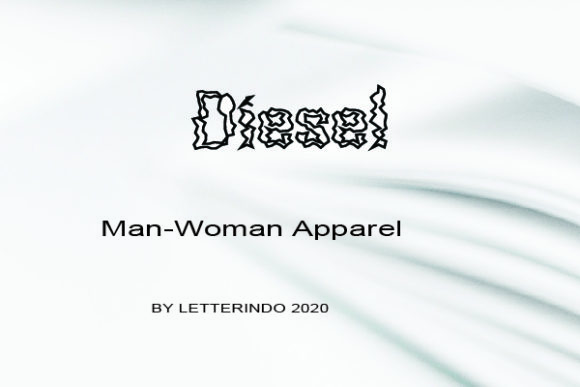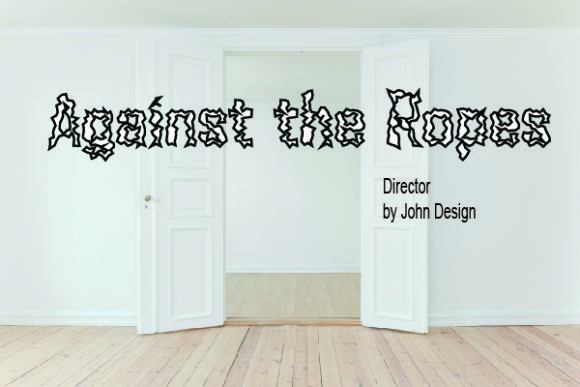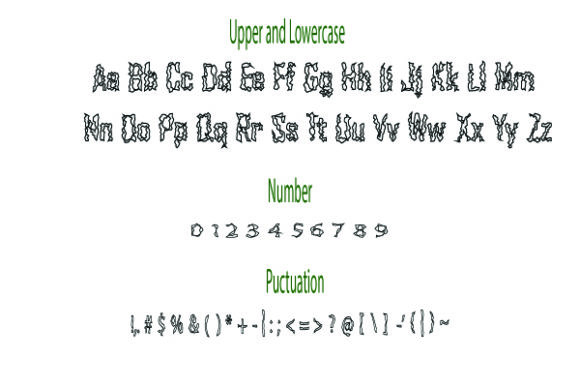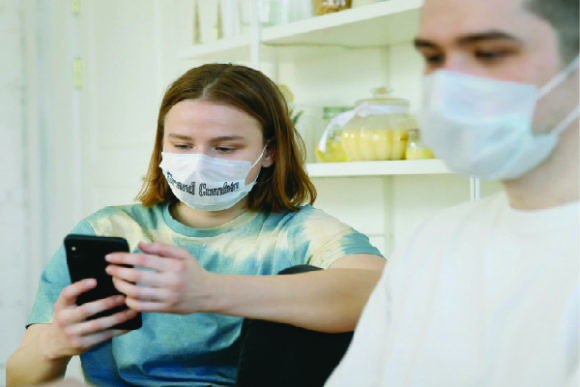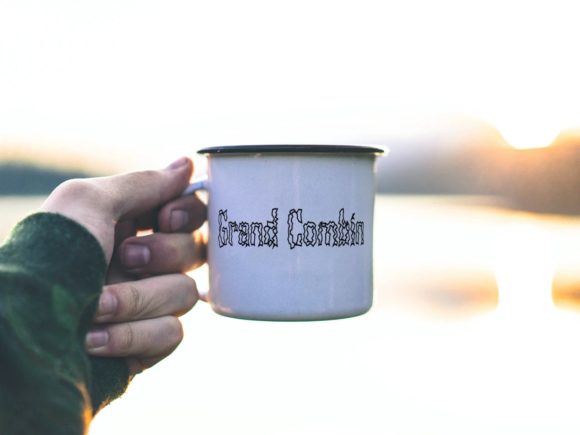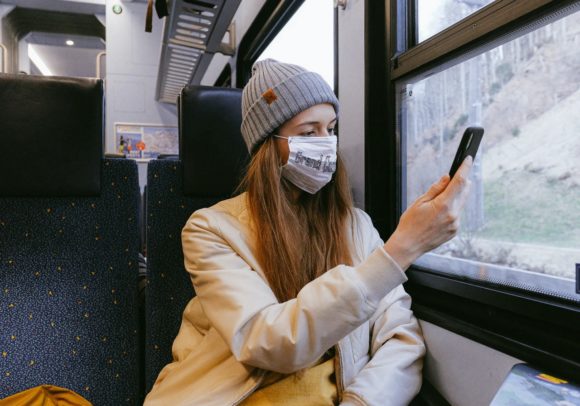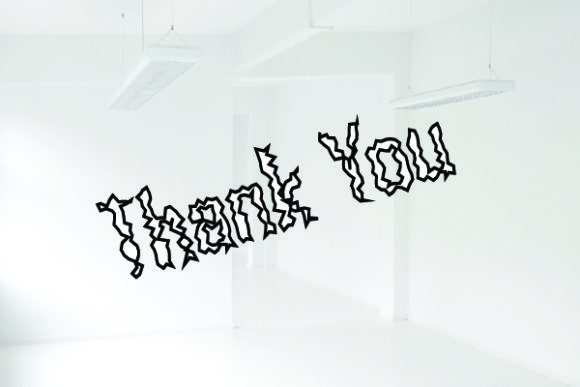
Grand Combin Font
About Grand Combin Font
Grand Combin is a quirky handwritten font. It features an original feel that will make your designs stand out! This font is the perfect fit for all of your logos, branding, social media, and crafty DIY projects.